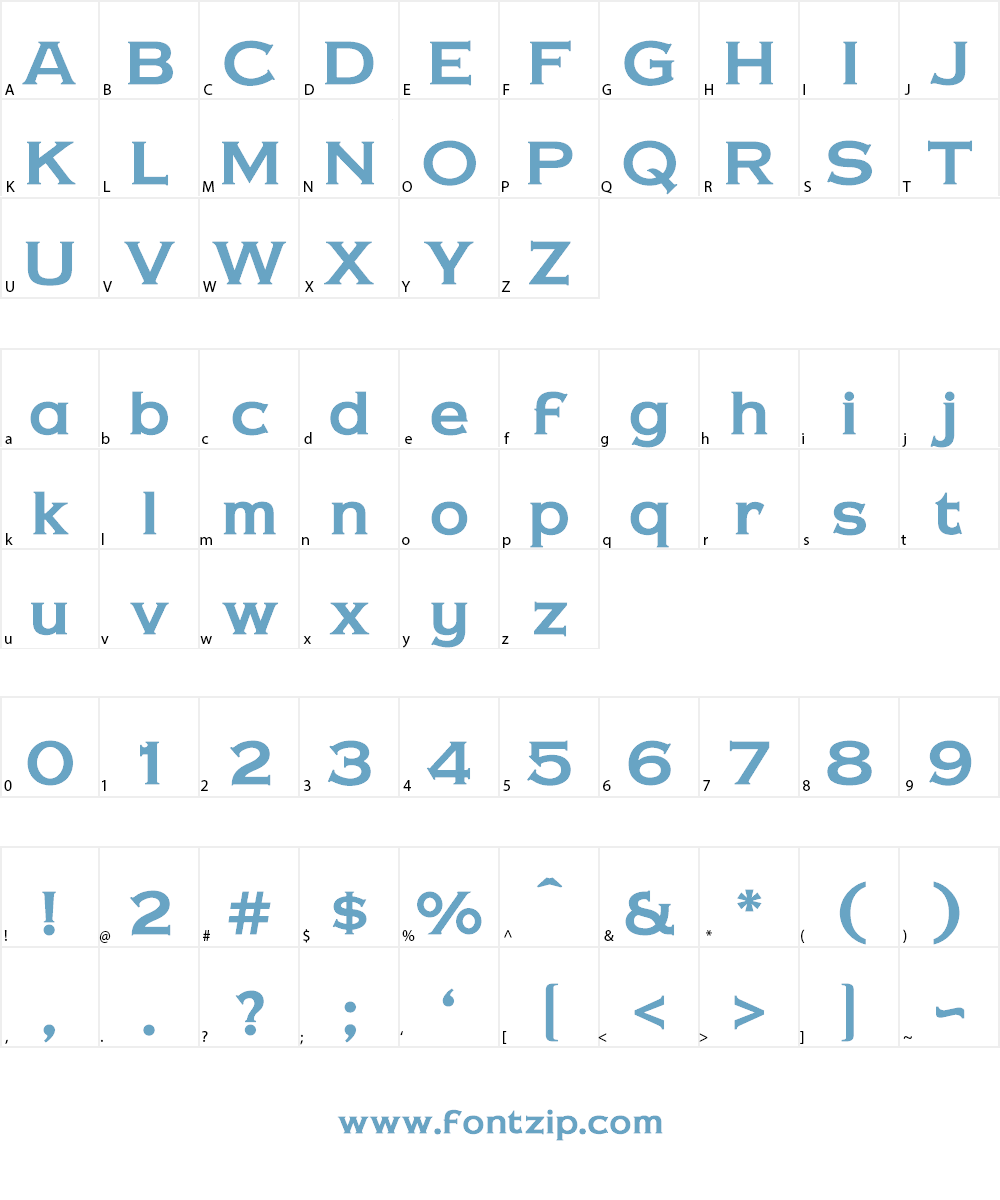
By no means a cheap spinoff of a great original, Copper Penny DTP is a completely revamped tribute to Frederic W. Goudy's venerable Copperplate Gothic. After much attention and care, this freshened-up face takes a century-overdue leap forward, anxious to take on the needs of an ever-changing design world. Our commercial version of Copper Penny includes 4 complete fonts brimming with an extensive range of alternates, plus a set of small uppercase characters for that traditional look. There's even a signmaker's version that lets you hop from desktop to billboards in one painless click! But lastly and most welcome is a viable lowercase that pays clear homage to its classic roots. For now, however, we'll let you download this one for free, so you can start playing with a whole new brand of a very old friend.